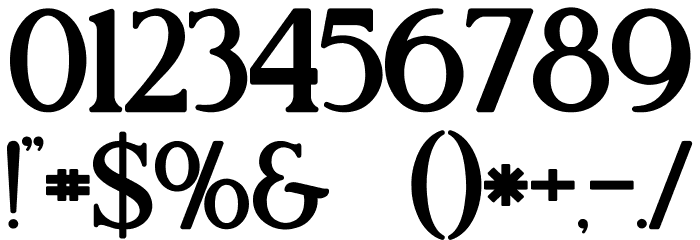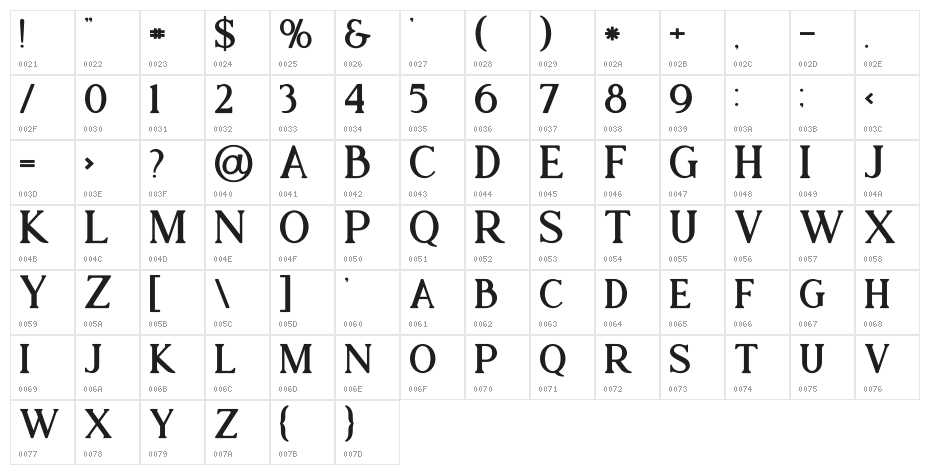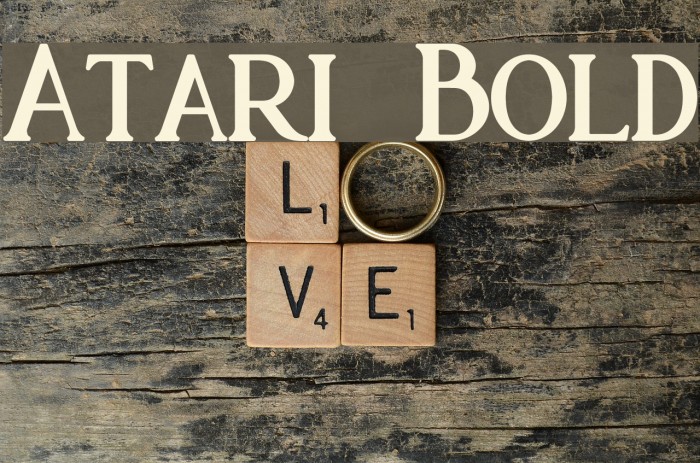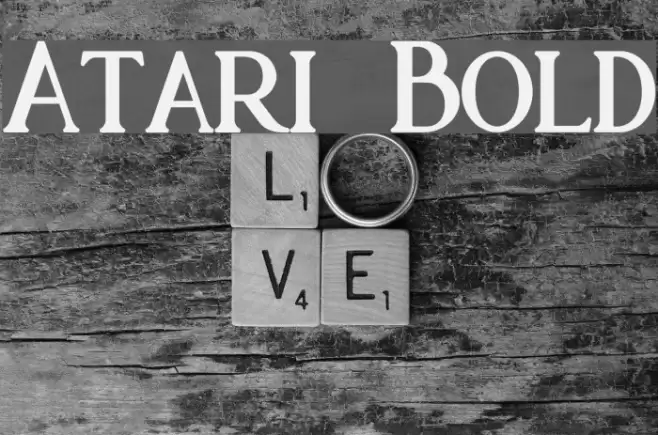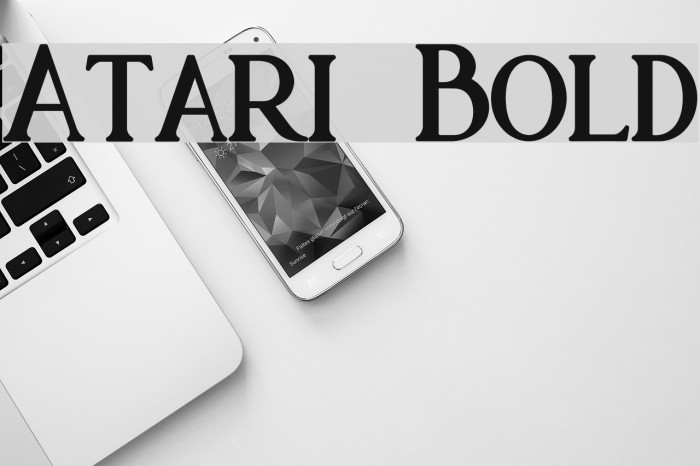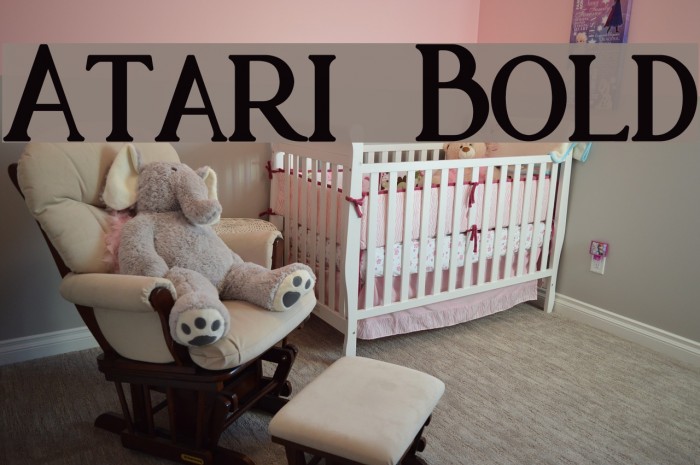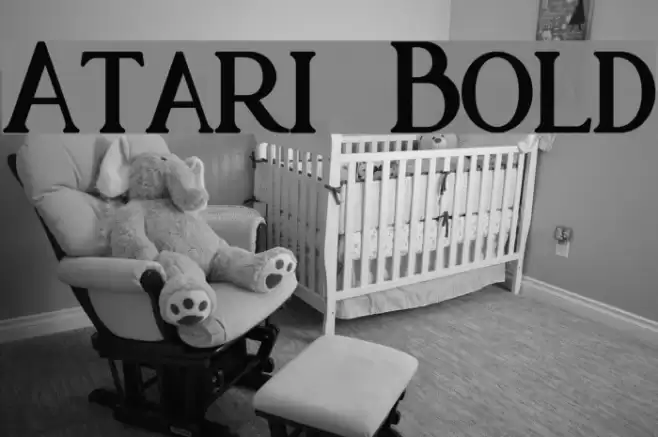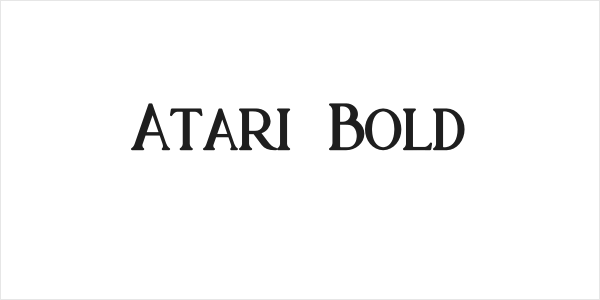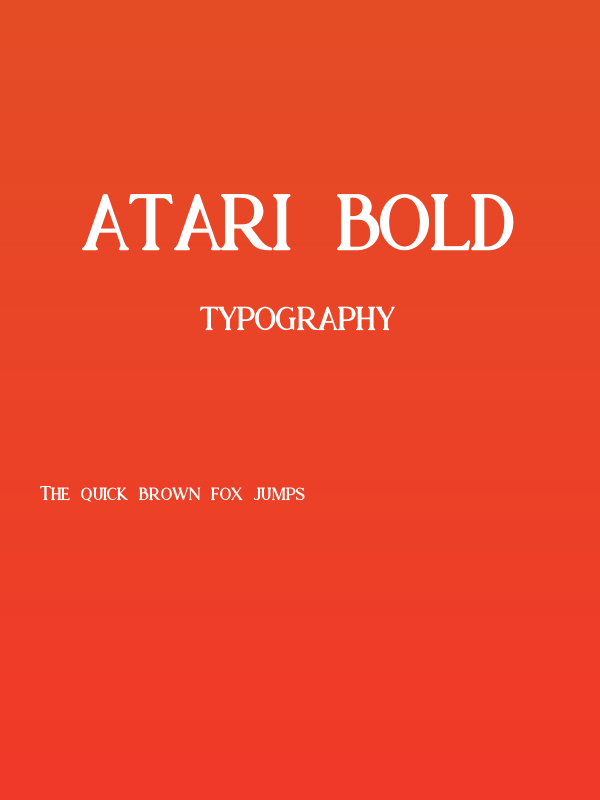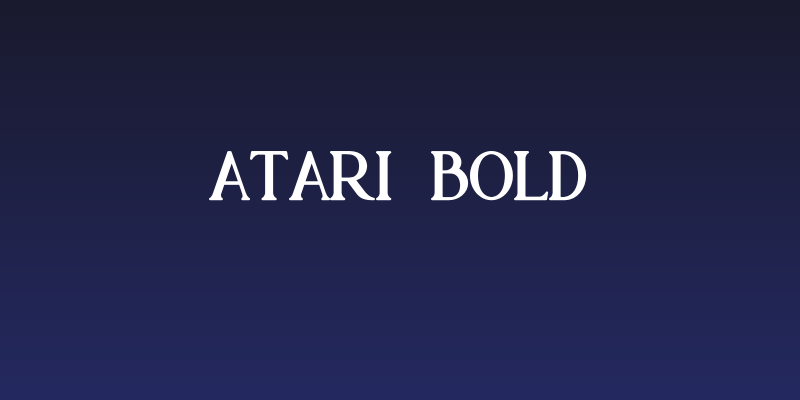
Atari Bold Font
Atari Bold Description
This font features a bold and commanding serif style, characterized by its strong vertical lines and slightly curved serifs. The uppercase letters exhibit a classic and authoritative presence, while the lowercase letters maintain a consistent and harmonious flow. The numerals are robust and clear, ensuring readability across various contexts. Special characters are designed with a similar boldness, integrating seamlessly with the overall aesthetic. This font's design is both timeless and versatile, making it suitable for a wide range of applications.